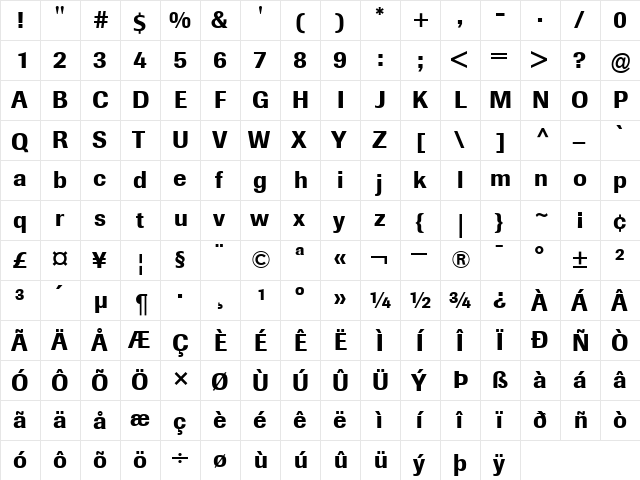
BertholdImago-Medium Medium Font Preview
BertholdImago-Medium Medium
Design Context for BertholdImago-Medium Typeface
BertholdImago-Medium offers clean, dependable letterforms without strong stylistic allegiance, making it a practical choice for designers who need flexibility.
Pro Tip: Use BertholdImago-Medium in both headline and body roles to test its range before committing to a single application.